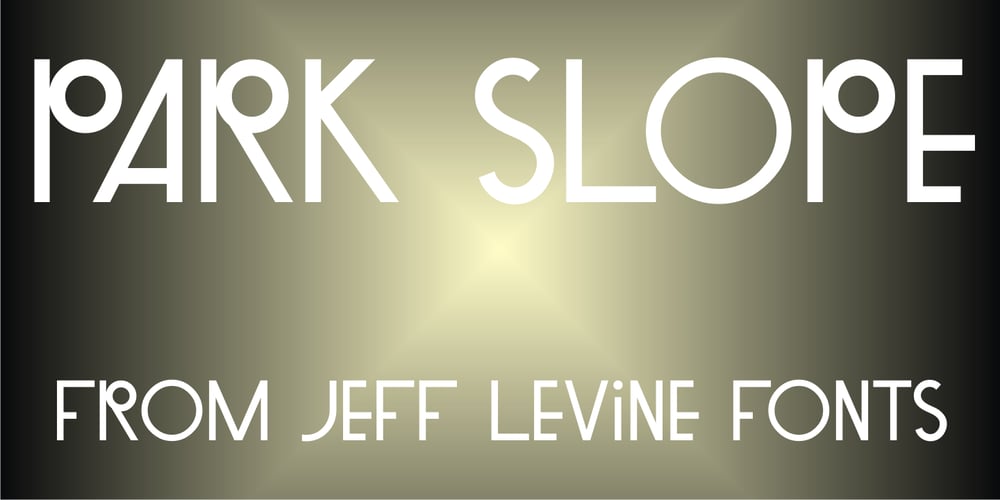
Park Slope JNL Font Family was designed by Jeff Levine and published by Jeff Levine. Park Slope JNL contains 1 styles and family package options. The free-form geometric shapes of the lettering on a vintage piece of sheet music entitled “Four Pictures” is the basis for Park Slope JNL, named for a neighborhood in Brooklyn, New York.